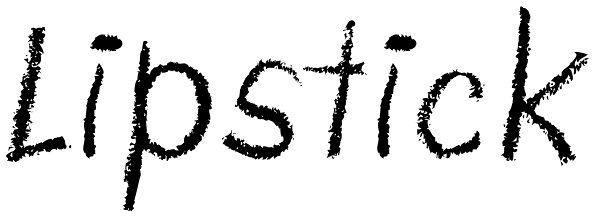
Lipstick
The idea for Lipstick came from a snippy little note Patrick Griffin’s better half left for him one night. The note was tacked to the bedroom door. “COUCH TONIGHT!” it exclaimed in red lipstick on a paper towel. All because the hockey game was on at...